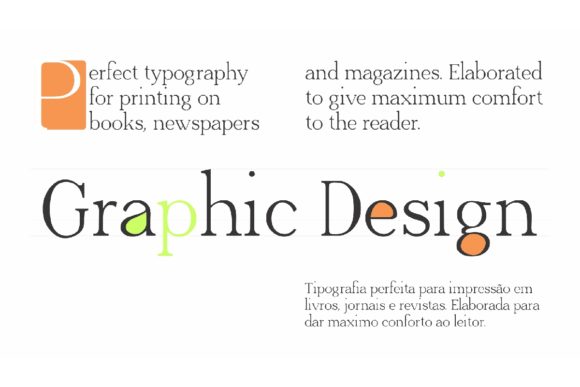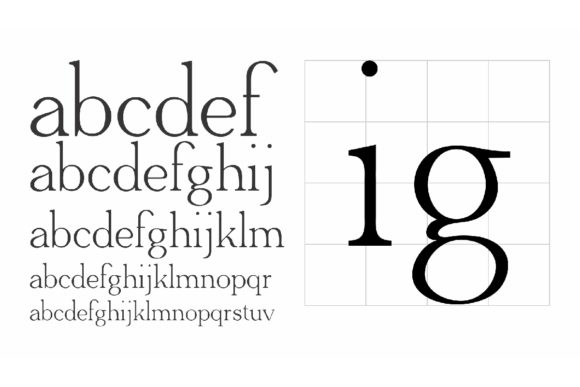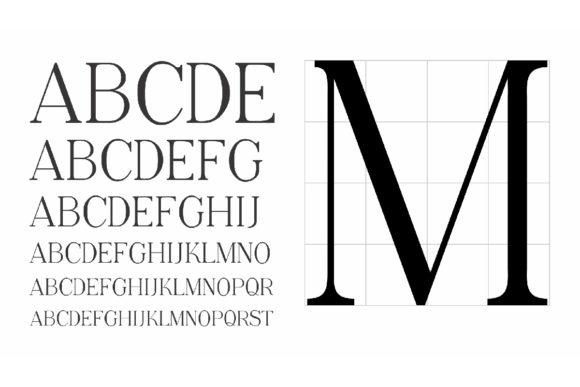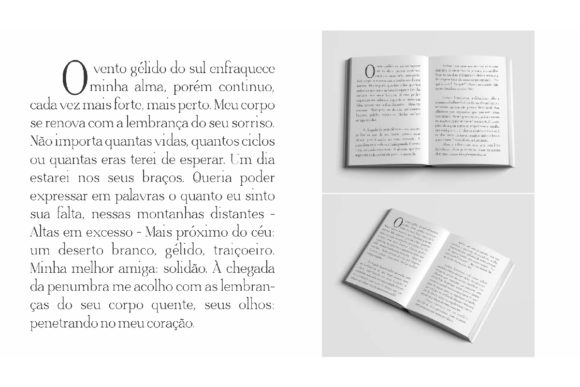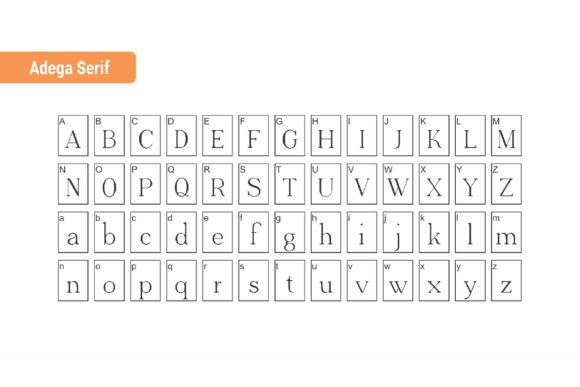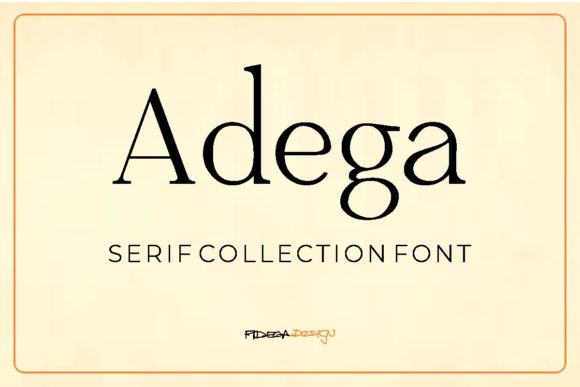
Adega Font: Elevate Your Design with Classic Sophistication
In the world of typography, few fonts manage to convey a sense of classic sophistication and elegance. However, Adega Font is an exception, boasting incredibly classic and sophisticated serif elements that make this font a clear standout. Designed to bring a touch of refinement and luxury to any design project, Adega Font has become a favorite among designers and crafters alike.
The Origins of Adega Font
Adega Font is a carefully crafted typeface that draws inspiration from traditional serif fonts, while incorporating modern elements to make it more versatile and user-friendly. The result is a font that exudes a sense of timelessness and sophistication, making it perfect for a wide range of design applications, from luxury branding and advertising to packaging and editorial design.
Key Features of Adega Font
So, what sets Adega Font apart from other serif fonts? Here are some of its key features:
- Classic Serif Elements: Adega Font features traditional serif elements, including delicate flourishes and subtle bracketing, which give it a sense of elegance and refinement.
- Modern Twists: Despite its classic roots, Adega Font incorporates modern elements, such as clean lines and a streamlined aesthetic, to make it more versatile and adaptable.
- Highly Legible: Adega Font is designed to be highly legible, even at small sizes, making it perfect for body text and other applications where readability is crucial.
- Multilingual Support: Adega Font supports a wide range of languages, including English, French, German, Italian, and many others.
Uses for Adega Font
Adega Font is an incredibly versatile typeface that can be used in a wide range of design applications, including:
- Luxury Branding: Adega Font is perfect for luxury brands looking to convey a sense of sophistication and elegance.
- Editorial Design: Adega Font is well-suited for editorial design, including magazines, newspapers, and books.
- Packaging Design: Adega Font can add a touch of luxury and sophistication to packaging design, making it perfect for high-end products.
- Advertising: Adega Font can be used in advertising to create eye-catching headlines and body copy that exudes elegance and refinement.
Tips for Using Adega Font
Here are some tips for getting the most out of Adega Font:
- Use it sparingly: Adega Font is a bold and elegant typeface, so use it sparingly to avoid overwhelming the reader.
- Pair it with contrasting fonts: Adega Font pairs well with contrasting fonts, such as sans-serif fonts or script fonts.
- Experiment with font sizes: Adega Font is highly legible at small sizes, but it can also be used at larger sizes to create dramatic headlines.
In conclusion, Adega Font is a sophisticated and elegant typeface that is perfect for designers and crafters looking to add a touch of luxury and refinement to their design projects. With its classic serif elements, modern twists, and highly legible design, Adega Font is an excellent choice for a wide range of design applications. Whether you’re working on a luxury branding project, editorial design, packaging design, or advertising, Adega Font is sure to elevate your design to the next level.